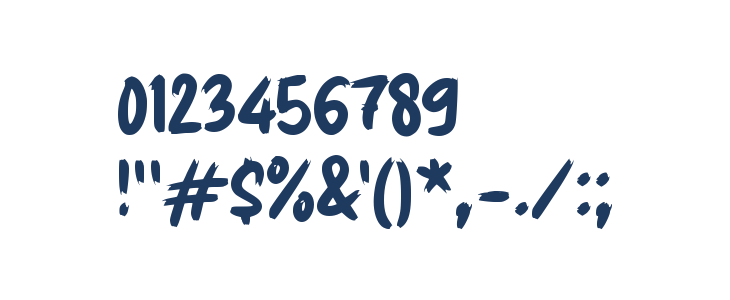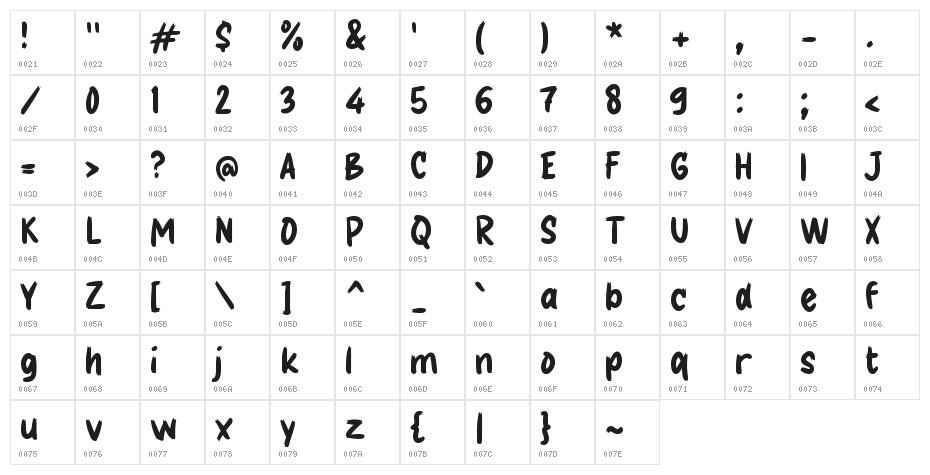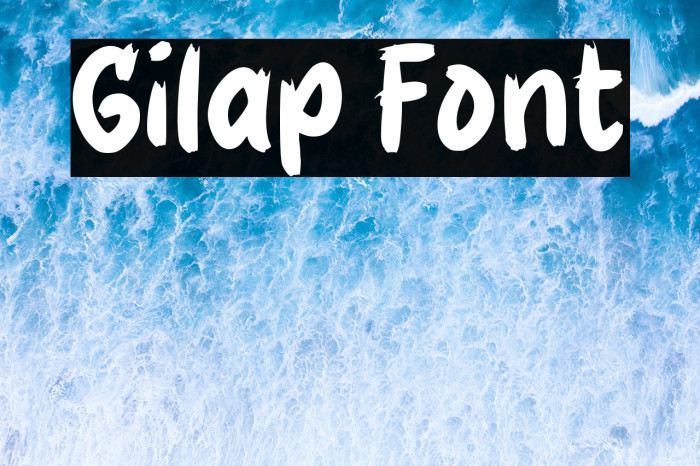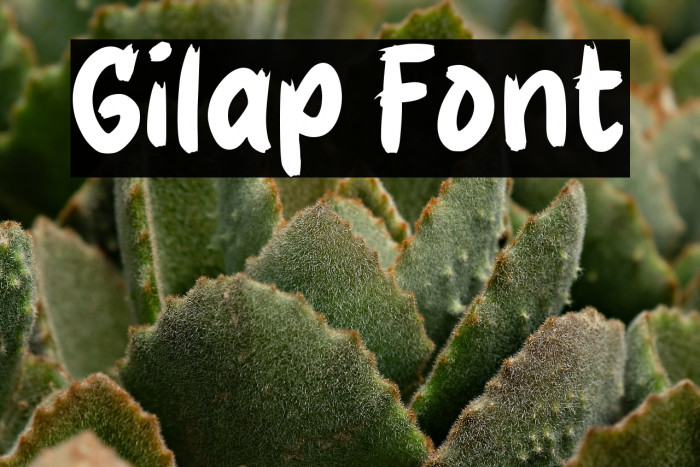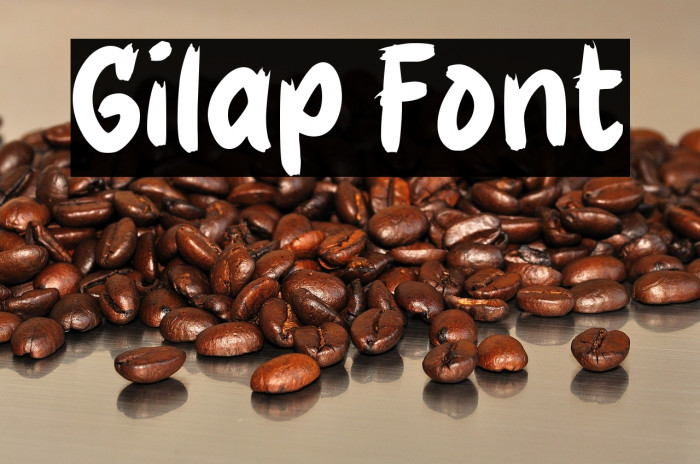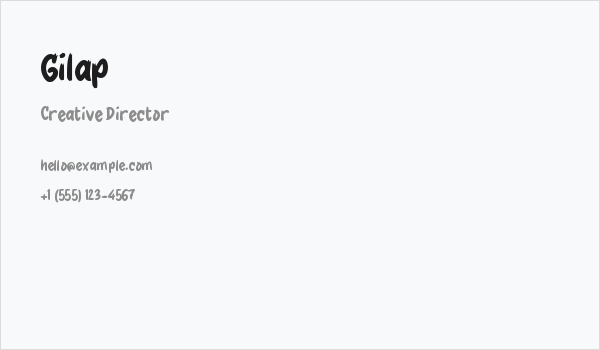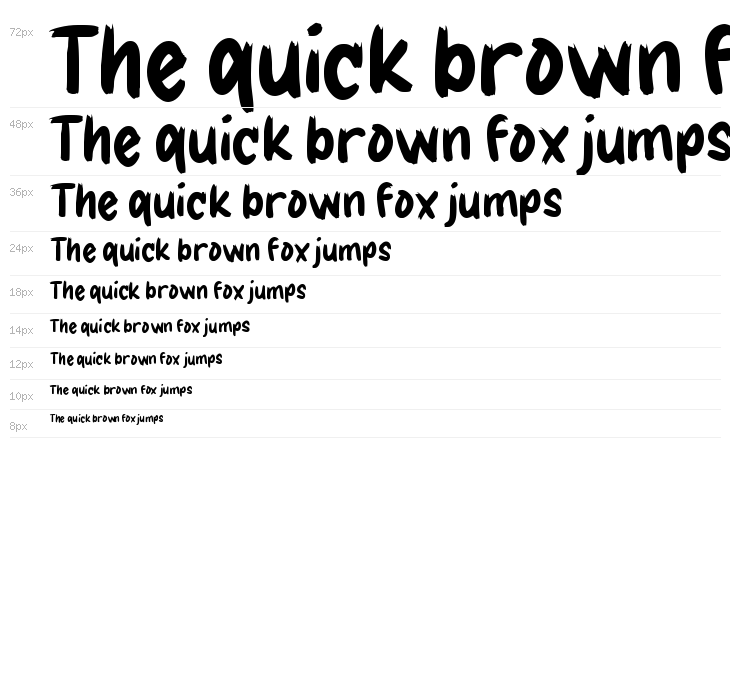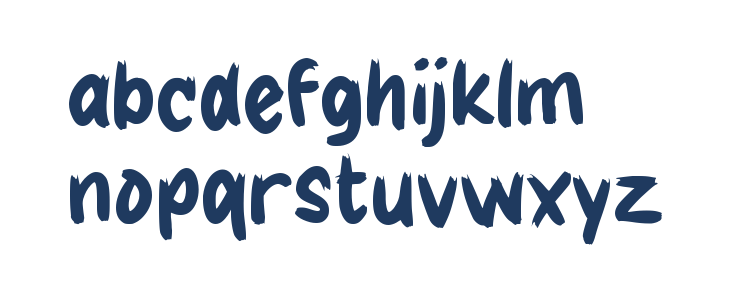
Gilap Font
Gilap Description
This font features a bold, expressive style with a hand-painted appearance. The strokes are thick and dynamic, giving it a lively and energetic feel. Each character has a slightly irregular shape, adding to its handcrafted look. The uppercase and lowercase letters maintain a consistent weight, while the numerals and special characters are designed to match the overall aesthetic. This font is perfect for projects that require a personal touch or a creative flair, making it suitable for artistic and informal applications.
| Proposed Projects | Ideal for posters, branding, social media graphics, and creative projects that require a personal touch. |